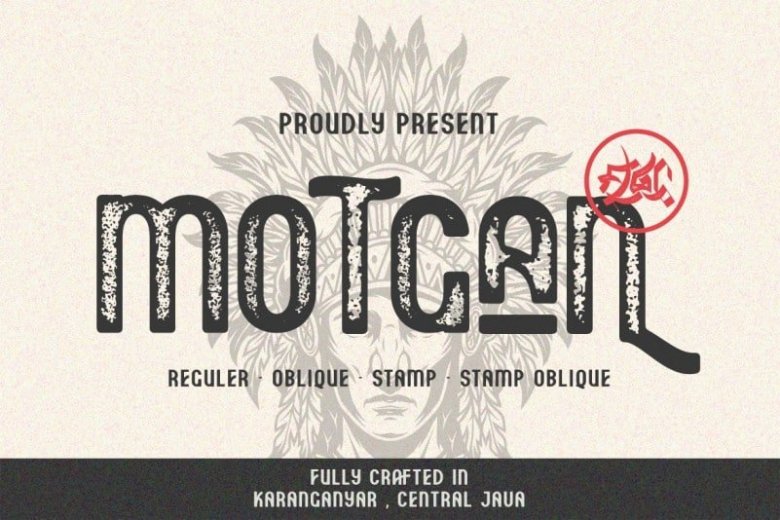
Motgan Display Font Free
Motgan Display Font is a vintage display font that has four styles. You can use it to bring a vintage aesthetic to your project design, It’s designed and shared by FallenGraphic Studio. With it’s unique & distinct characteristics it sets itself apart, while also maintaining a strong timeless appeal overall.
Textured versions allow Motgan to be a complete set without the need for 3rd party effects to create a printed look, eliminating a step in the process of finalizing your piece.